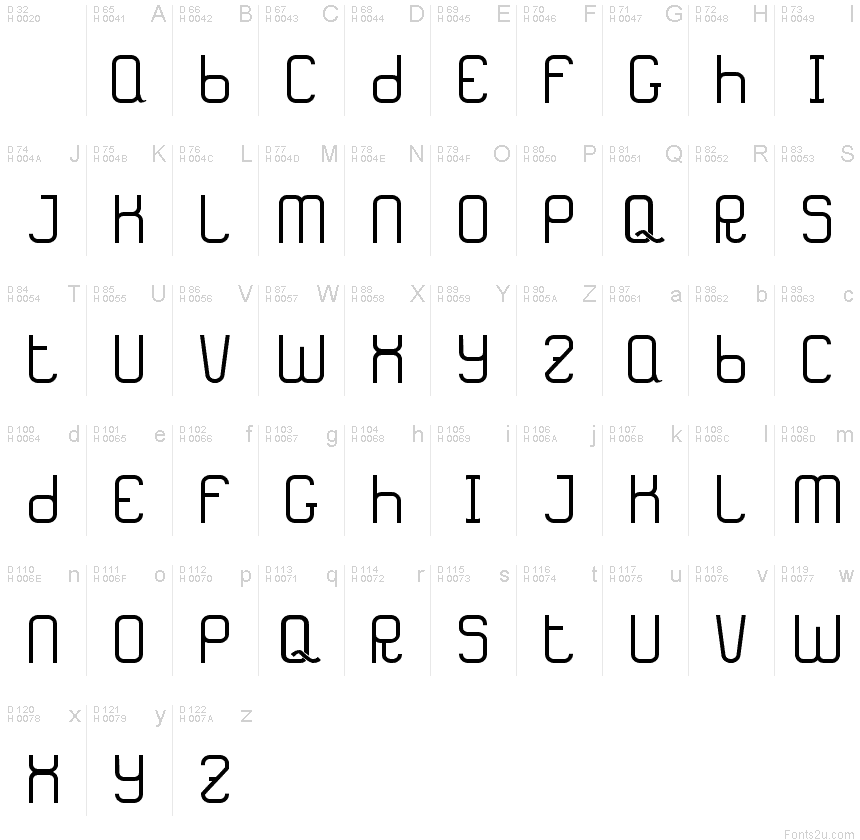
TF_Karma
TF Karma by Peter Reichard is a free modern monoline display font with a cool early-digital calm. Its letters mix tall, open shapes with soft rounded corners and long vertical strokes, so the font feels sleek and slightly futuristic without turning hard or mechanical.
It works well on posters, music packaging, fashion lookbooks, title cards, and short magazine cover lines where those airy forms can carry the page. As a free font, TF Karma also fits wordmarks, interface headers, and brief editorial pull quotes, especially when you want a restrained techno note rather than a loud sci-fi effect.